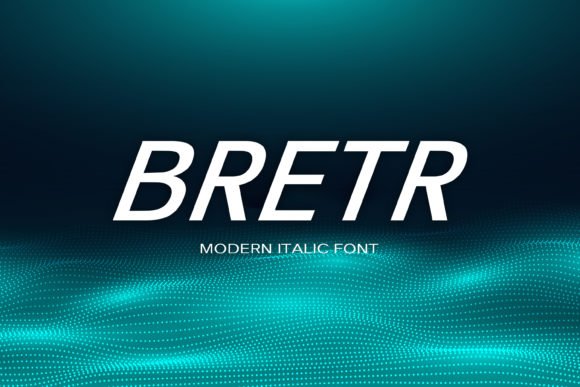
The Birth of a Modern Classic: Bretr Font
Have you ever been stuck staring at a blank canvas, waiting for that elusive spark of creativity to strike? It’s a familiar feeling for many designers, but for those who have experienced it, there’s nothing quite like the thrill of watching an idea come to life. And that’s exactly what happened when the Bretr Font was born – a sans serif masterpiece inspired by the timeless tradition of sign painting, with a modern twist that’s perfect for contemporary designs.
Bretr Font is more than just a typeface – it’s a versatile tool for designers who crave a clean, minimal aesthetic. From logos to business cards, t-shirts to billboards, this super clean and modern font is the perfect addition to any project. With its simplicity and elegance, Bretr Font is an invaluable asset for designers who want to make a lasting impression.
Bretr Font Key Features
- Font Family: Bretr is a sans-serif font family.
- Character Count: Bretr Font includes a wide range of characters, including Latin, Cyrillic and Greek alphabets.
- Unique Characteristics: Bretr Font features clean lines, geometric shapes and a modern aesthetic, making it suitable for a wide range of design applications.
Bretr Font Review
I’ve had the chance to work with the Bretr Font, and overall, I’m impressed. ✨ One thing that stands out is its sleek and modern design. The font is perfect for digital interfaces and can be easily read in various screen sizes.
Another advantage of Bretr Font is its wide range of language support. It’s available in several languages, making it a great choice for multilingual projects.
Here are some of the key features that I like about Bretr Font:
- ✨ Modern design that’s perfect for digital interfaces
- ✨ Wide range of language support
- ✨ Highly legible in various screen sizes
- ⚠️ Limited customization options, which may not be suitable for designers who like to experiment with different font styles
- ⚠️ Not as versatile as some other fonts, making it less suitable for print materials or more formal documents
Overall, I think the Bretr Font is a solid choice for digital projects that require a modern and sleek design. While it may not be perfect for every project, it’s definitely worth considering for the right applications.
The Bretr Font is a versatile font that can be used in a variety of contexts, including:
– Logos and branding
– Headings and titles
– Body text in creative projects
– Social media graphics and advertisements
Tips for Getting the Most Out of Bretr Font
To get the most out of Bretr Font, try using it in combination with other creative elements, such as bold colors and graphics. Experiment with different font sizes and styles to find the perfect balance for your design.
Alternatives to Bretr Font for Designers
Montserrat is a sans-serif font designed by Julieta Ulanovsky. It is a modern, geometric font that is great for digital interfaces and headlines. Use it for titles, headings, and body text where you need a clean, minimal look.
Montserrat is more geometric and modern compared to Bretr Font, which has a more rounded feel. Montserrat is also more versatile and can be used for a wider range of applications.
Lato is a sans-serif font designed by Łukasz Dziedzic. It is a clean, modern font that is great for digital interfaces and body text. Use it for paragraphs, captions, and other text where you need a clear, readable font.
Lato is more rounded and friendly compared to Bretr Font, which has a more angular feel. Lato is also more suitable for body text and paragraphs where readability is key.
Open Sans is a sans-serif font designed by Steve Matteson. It is a clean, modern font that is great for digital interfaces and body text. Use it for paragraphs, captions, and other text where you need a clear, readable font.